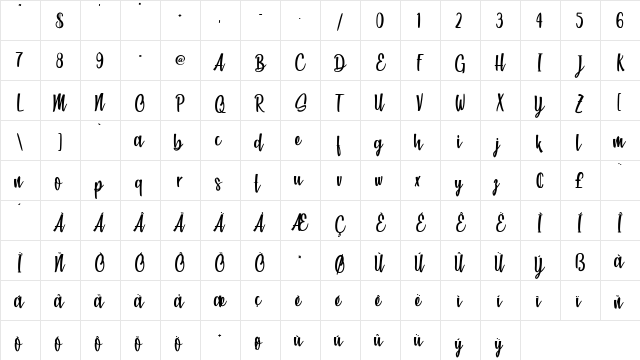
Beach Society Light Regular
| Foundry | Typhoon Type - Suthi Srisopha |
| Designer | Typhoon Type - Suthi Srisopha |
Design Context for Beach Society Light Typeface
Beach Society Light is a composed and adaptable typeface that performs quietly and consistently across a wide range of design contexts. The delicate stroke weight brings airiness and refinement to layouts.